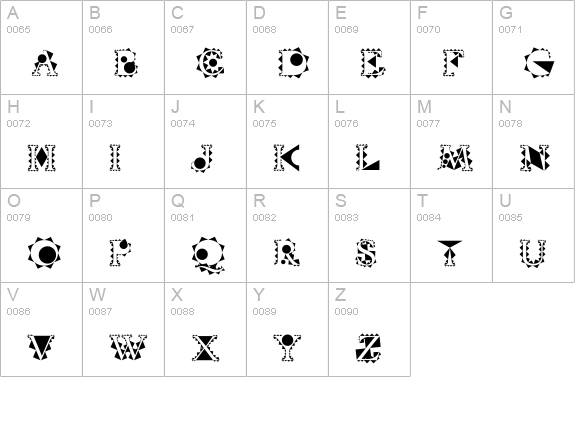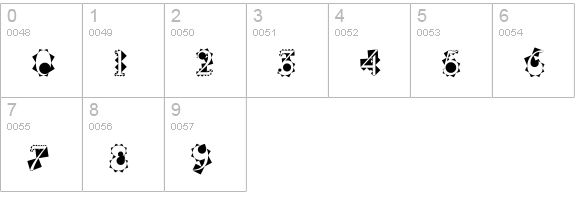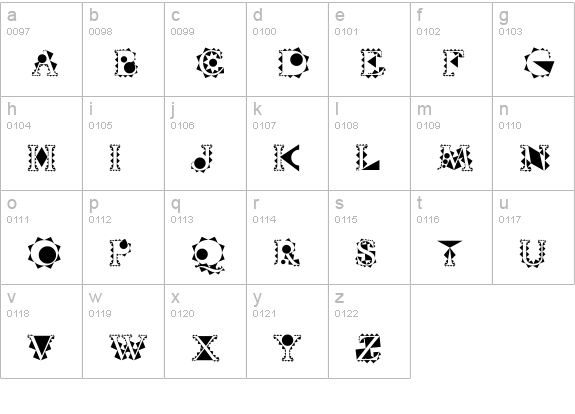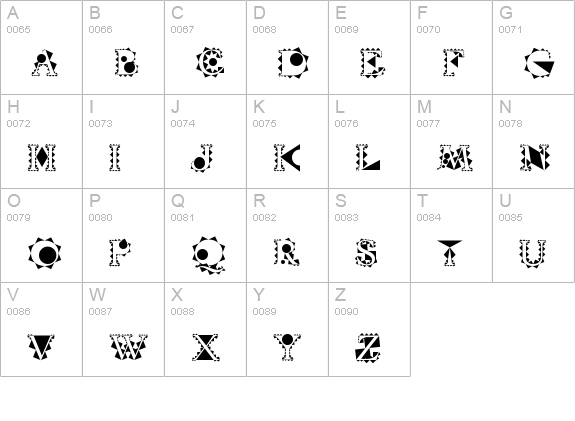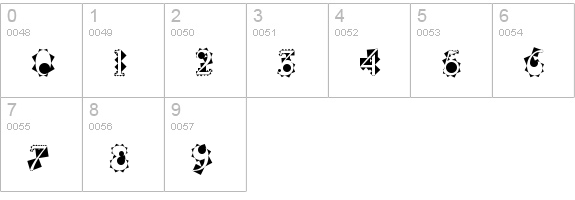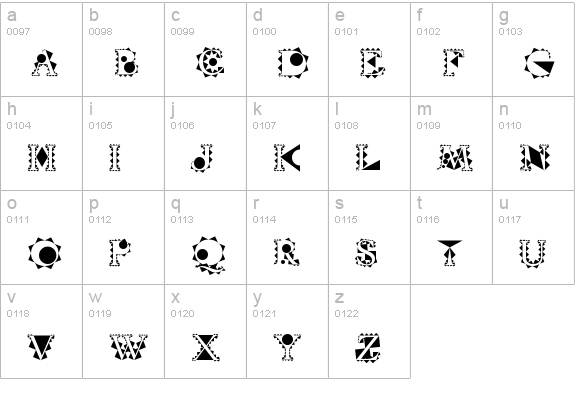
VTCrystalBalzac Font Details
VTCrystalBalzac font is a stunning and elegant typeface that combines classic beauty with a modern twist. Its delicate lines and intricate details make it perfect for adding a touch of sophistication to any project. This font features a unique blend of sharp edges and gentle curves, creating a harmonious balance that is pleasing to the eye. Its versatility allows it to be used in a wide range of design applications, from elegant wedding invitations to stylish logos and branding. One of the best things about VTCrystalBalzac font is that it is completely free. Yes, you heard that right! This exquisite typeface can be downloaded for free at FontsMarket.com, allowing you to add a touch of elegance to your designs without breaking the bank. Whether you're a professional designer or a creative enthusiast, VTCrystalBalzac font is a must-have in your font collection. Its timeless beauty and effortless style will elevate your designs to new heights. So why wait? Head over to FontsMarket.com and download this stunning font for free today!